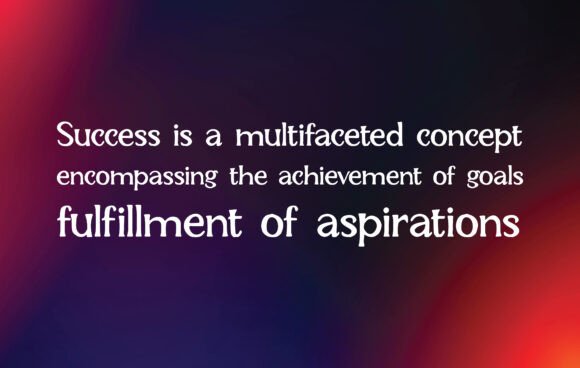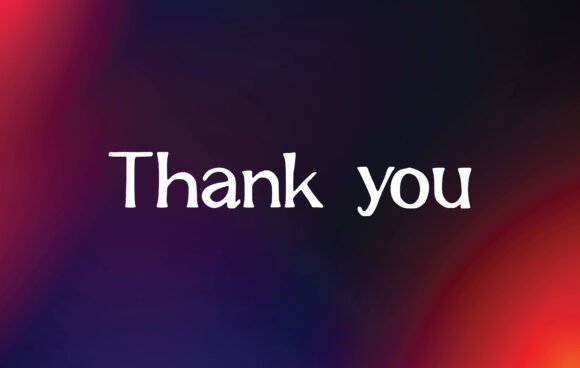
Introduction to Flax Font
Flax is a lovely and beautiful handwritten font.
Key Features of Flax Font
Why Choose Flax Font?
Flax Font offers exceptional quality and versatility, making it a valuable addition to your design toolkit. Whether you’re creating for personal projects or commercial use, Flax Font delivers professional results.